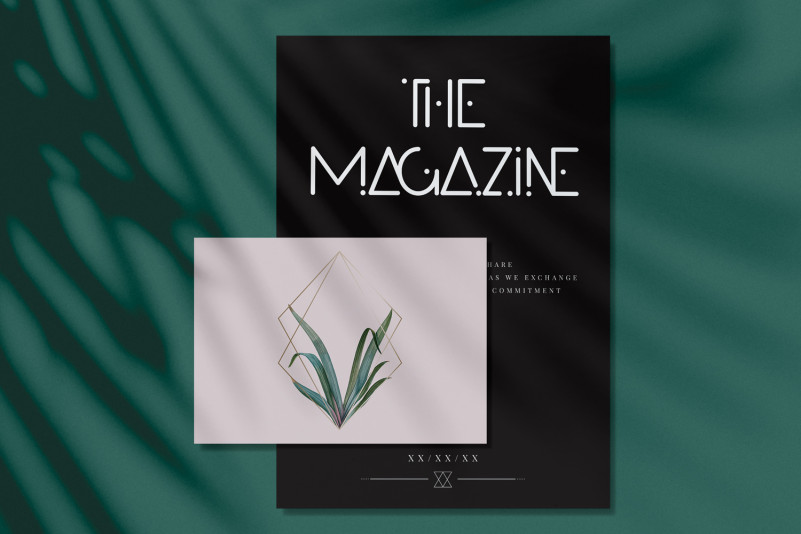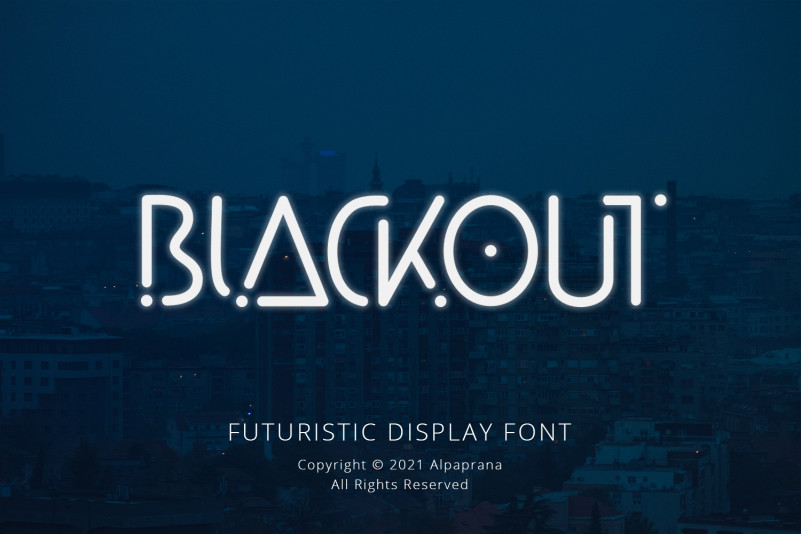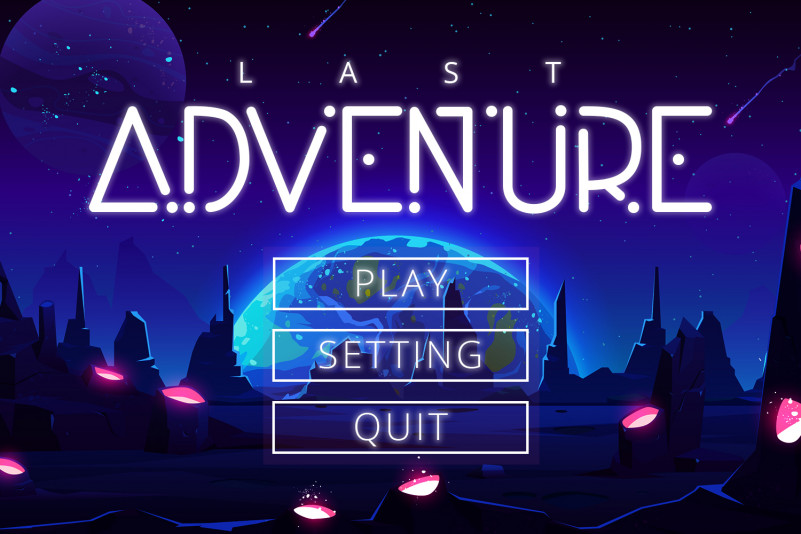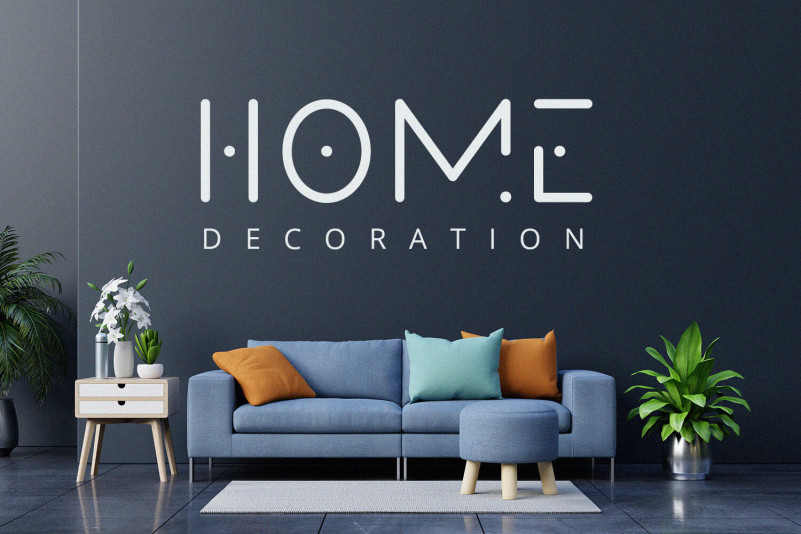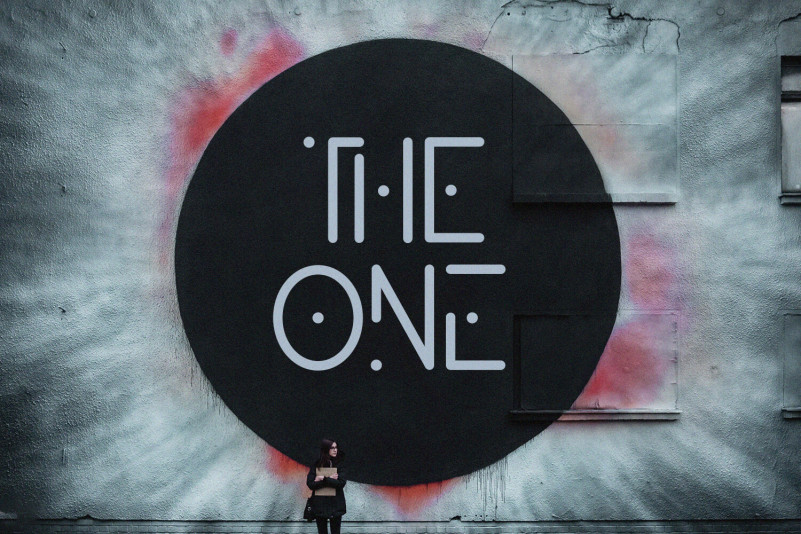
Blackout Display Font
This is a futuristic display font with authentic and casual feels. It will be perfectly used for Branding, Logo Design, Lettering, Logotype, Clothing, Poster, magazine, packaging, posters, shopping bags, t-shirts, book covers, photography, special events and other design project.